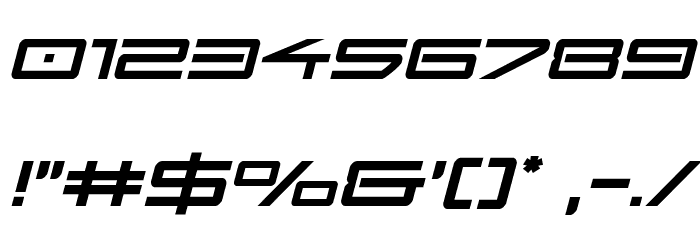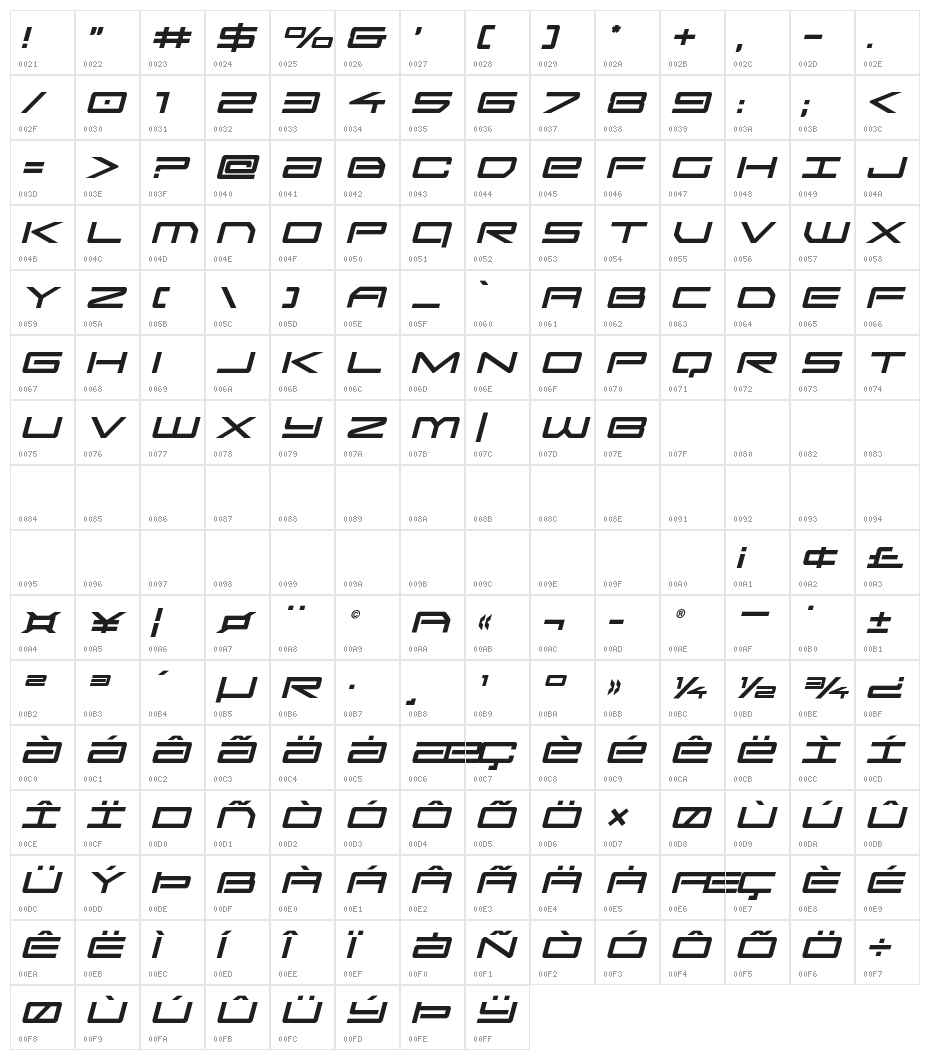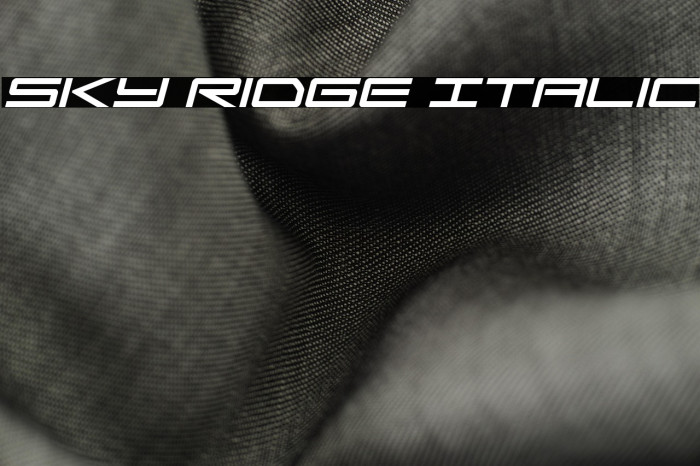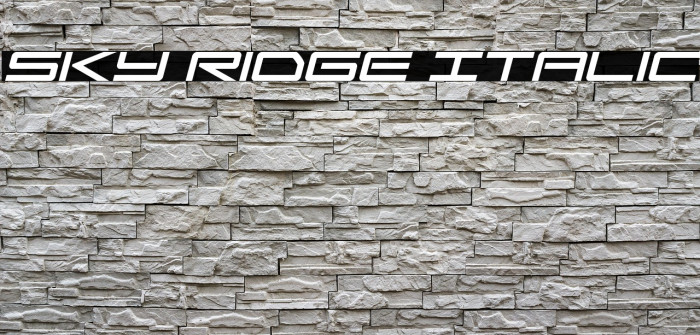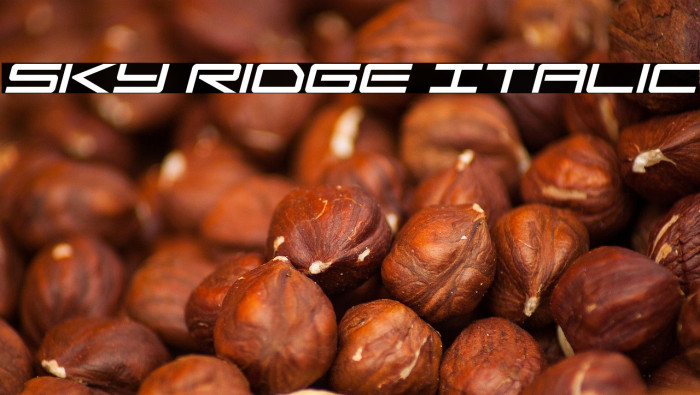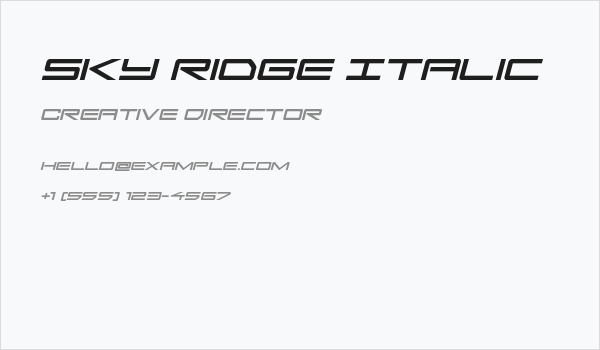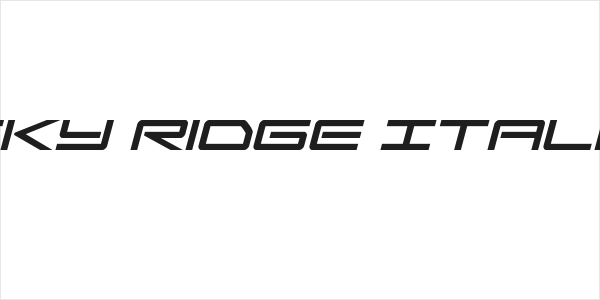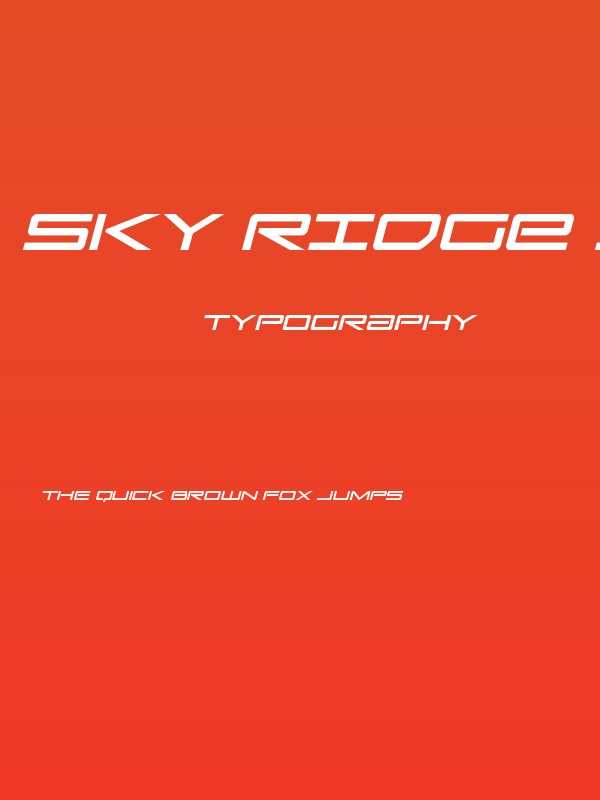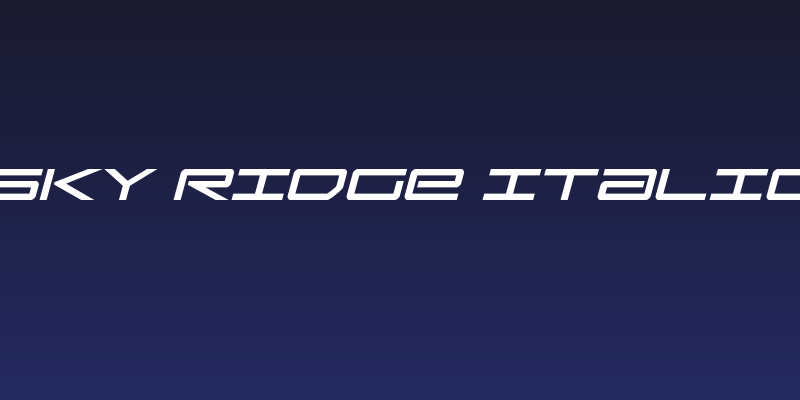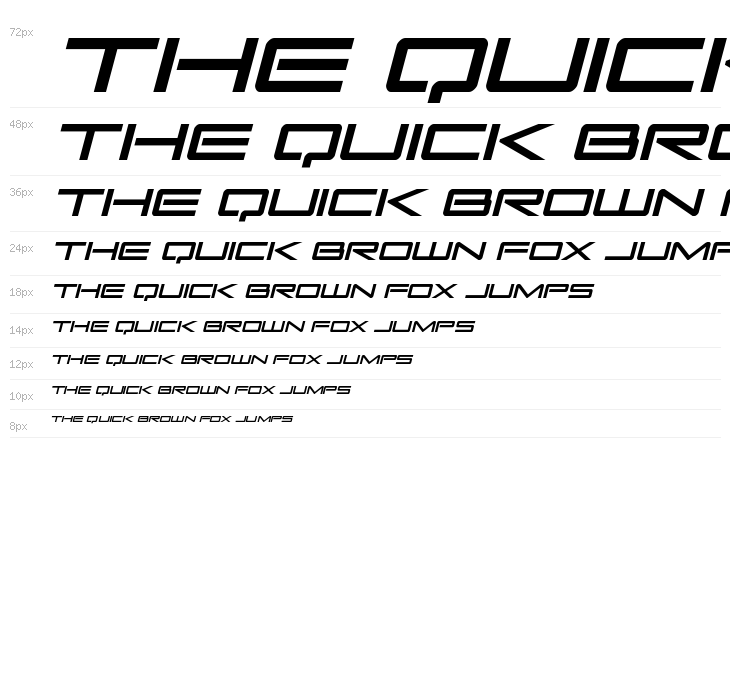
Sky Ridge Italic Font
Sky Ridge Italic Description
This font features a sleek, futuristic design with a distinct italic slant, giving it a dynamic and forward-moving appearance. The characters are angular and geometric, with sharp edges and a consistent stroke width that conveys a sense of precision and modernity. The uppercase and lowercase letters maintain a uniform style, enhancing readability while adding a unique flair. The numerals and special characters follow the same design principles, ensuring a cohesive look across all text elements. This font's style is ideal for projects that require a modern, tech-inspired aesthetic.
| Proposed Projects | Ideal for technology branding, sci-fi themed designs, modern advertising, and digital interfaces. |